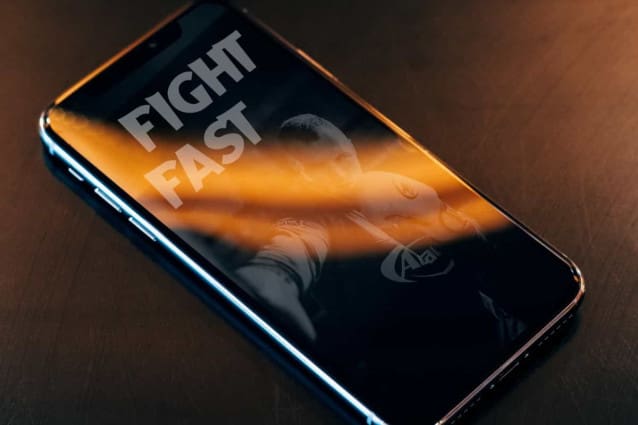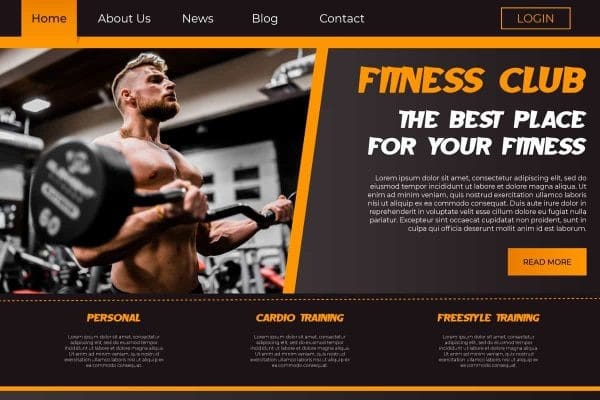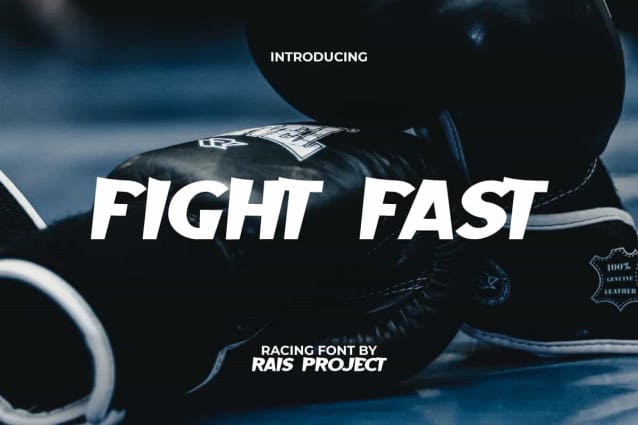
Fight Fast Font
Fight Fast Font is a playful modern display font with racing gaming theme by RaisProject Studio. This font has a unique and slightly slanted letter shape, making it look pleasing. It will be good for any designs, such as advertisement, brand image, cover, custom design, invitation, label, marketing material, poster, product packaging, quotes, signage, stationery, website page, and more!
Fight Fast Font includes a full set of ALL CAPS for Uppercase and Lowercase Letters, Numerals, and large range of Punctuation. This modern font with a racing vibe will be suitable for various industries, such as automotive, cafeteria, event or festival, fashion, game, printing, publishing, sports, etc.